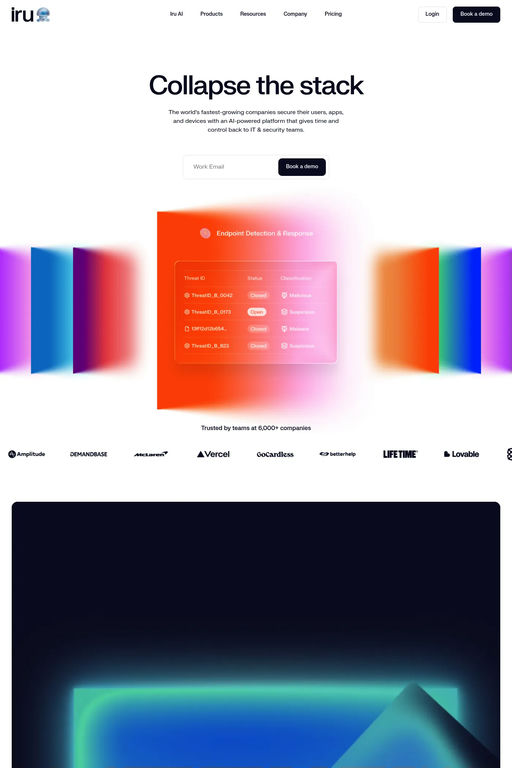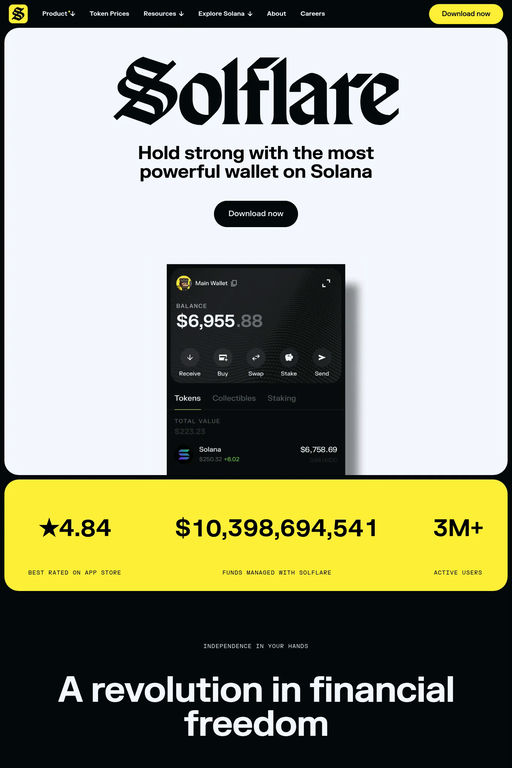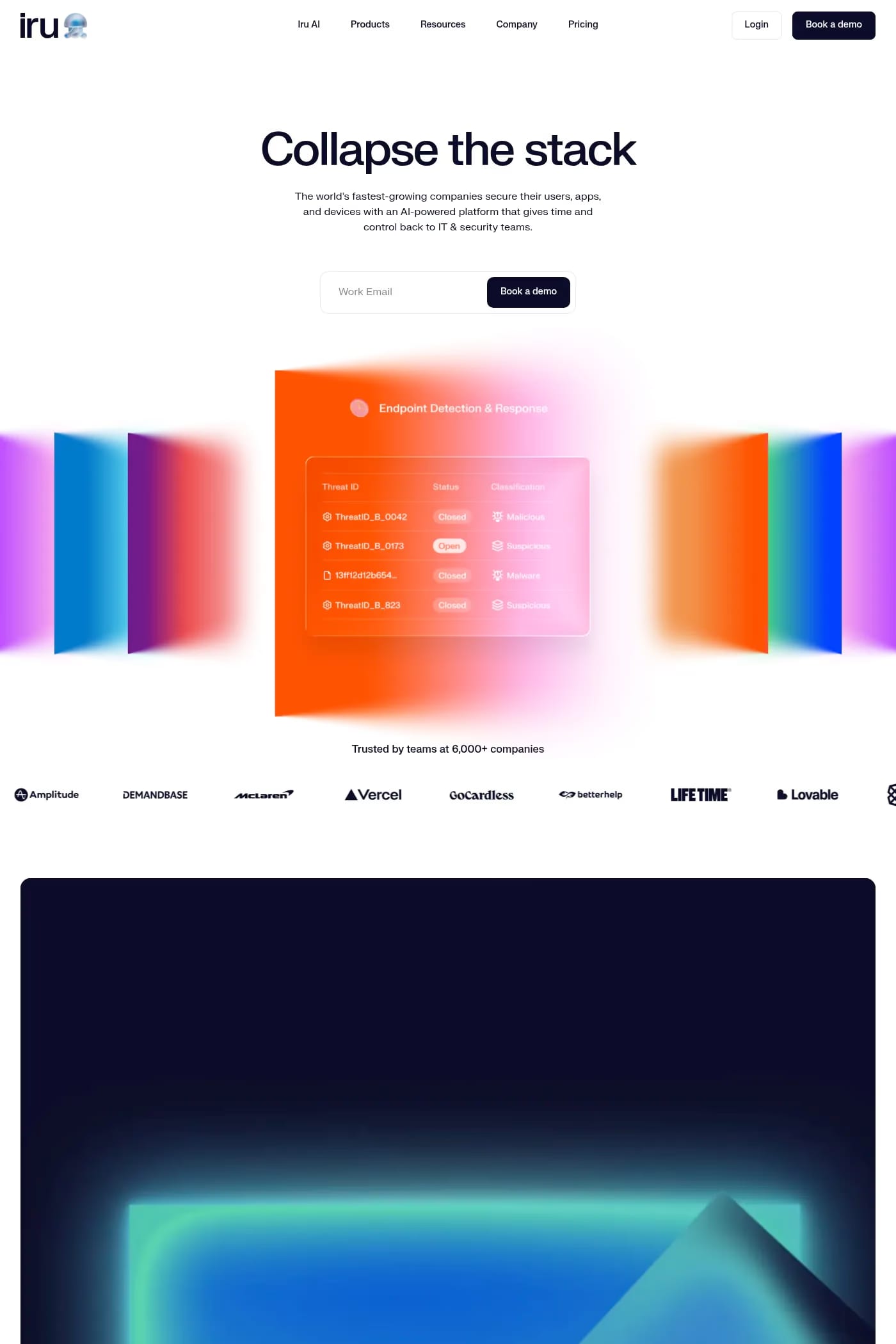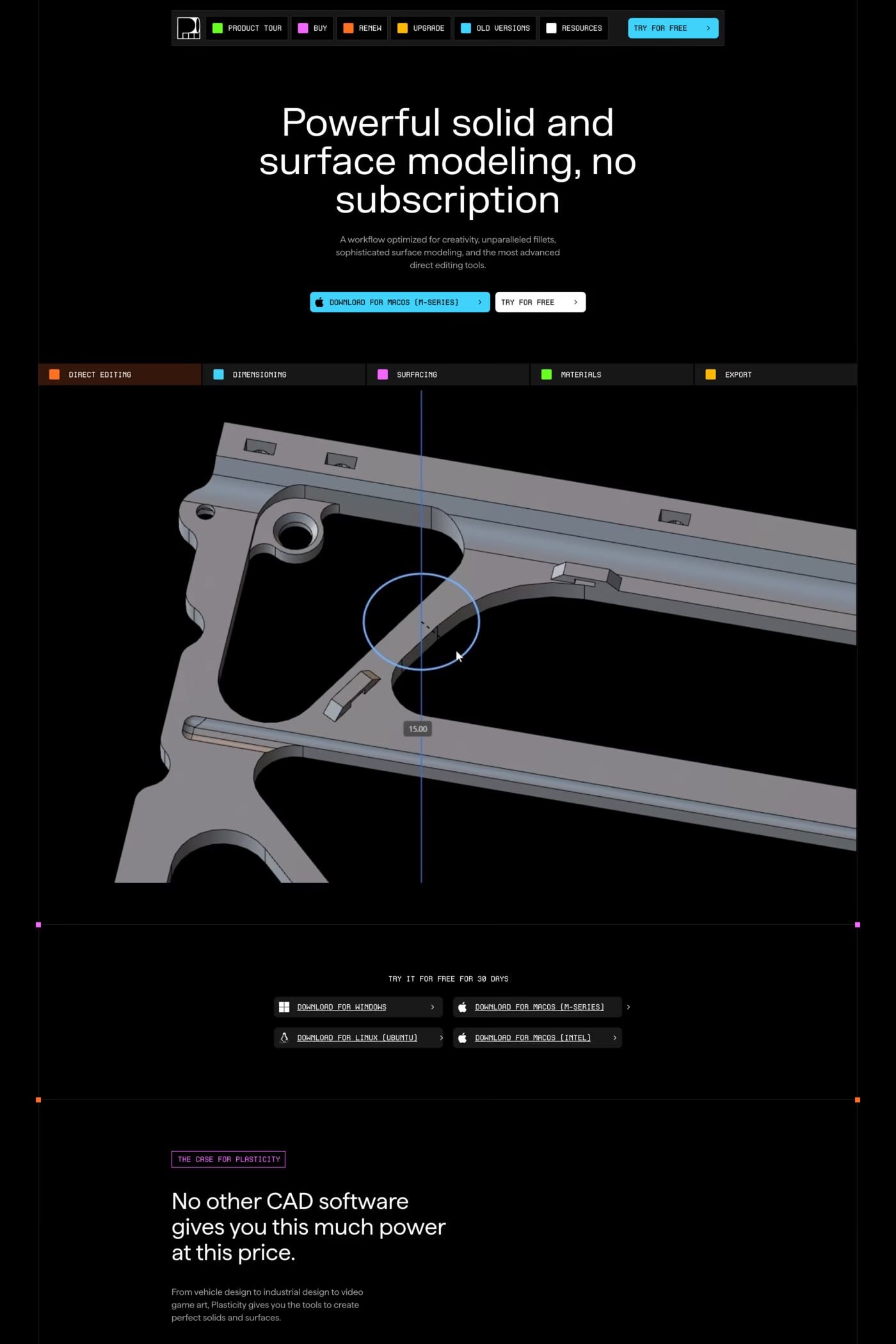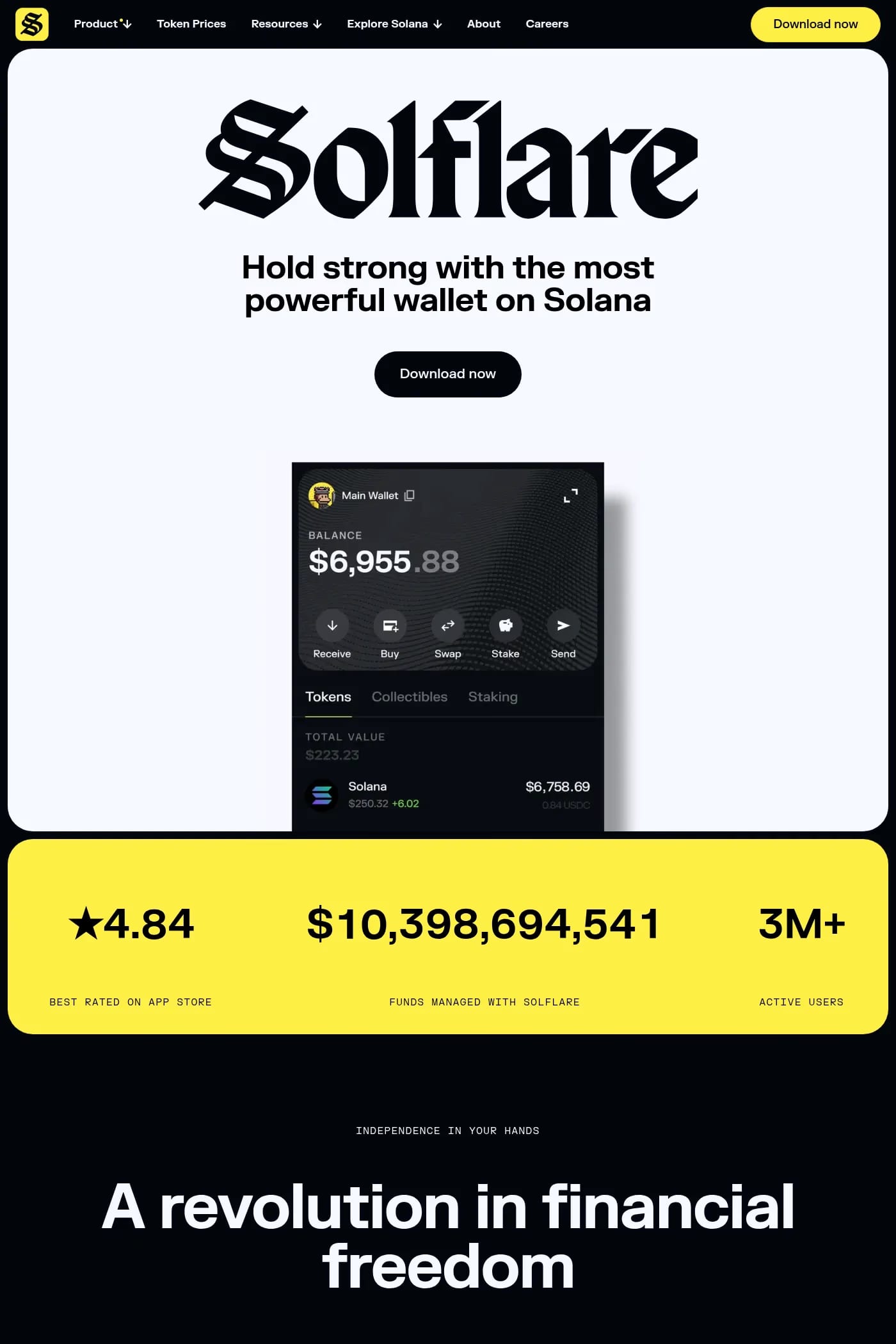
FK Grotesk is a sans-serif typeface from Florian Karsten Typefaces.
FK Grotesk represents a rigid typeface with a mechanical appearance, suitable for both small text and large headlines. Subtle ink traps and sharp corners provide distinctive and eye-catching detail at large point sizes.